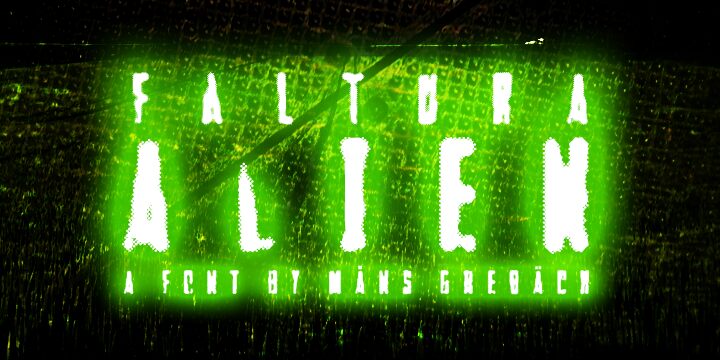
Faltura Alien by Måns Grebäck is a free distorted display font with dense, irregular letters and rough, bitten edges. Tall forms alternate with broader shapes, and uneven inner cuts give the alphabet a strange industrial silhouette.
Alien worlds and damaged machinery match its dark, misshapen forms. It suits science-fiction posters and game graphics, where the lettering can become part of a creature or technology concept. Music packaging and horror event merchandise also benefit from its abrasive texture and varied proportions.